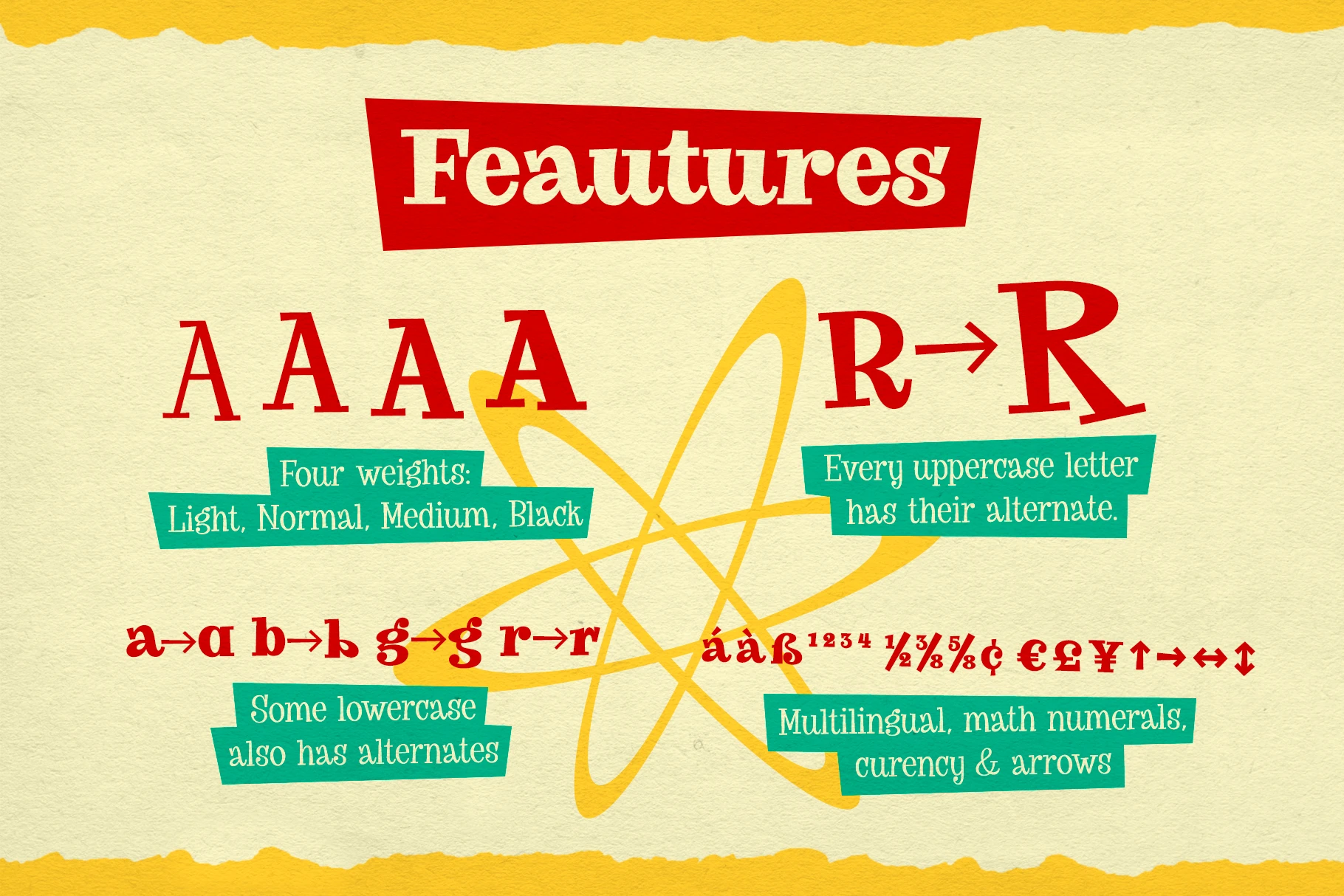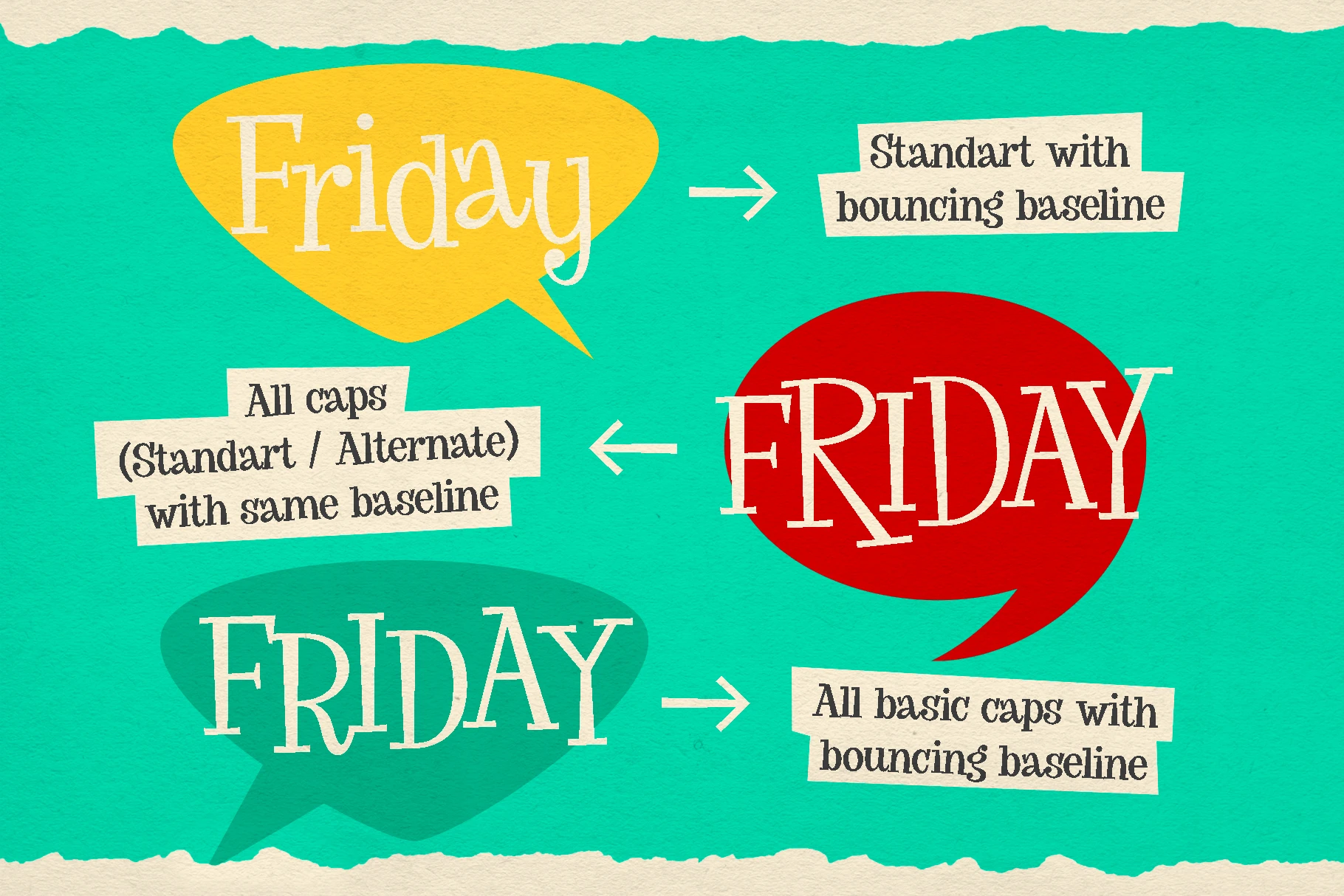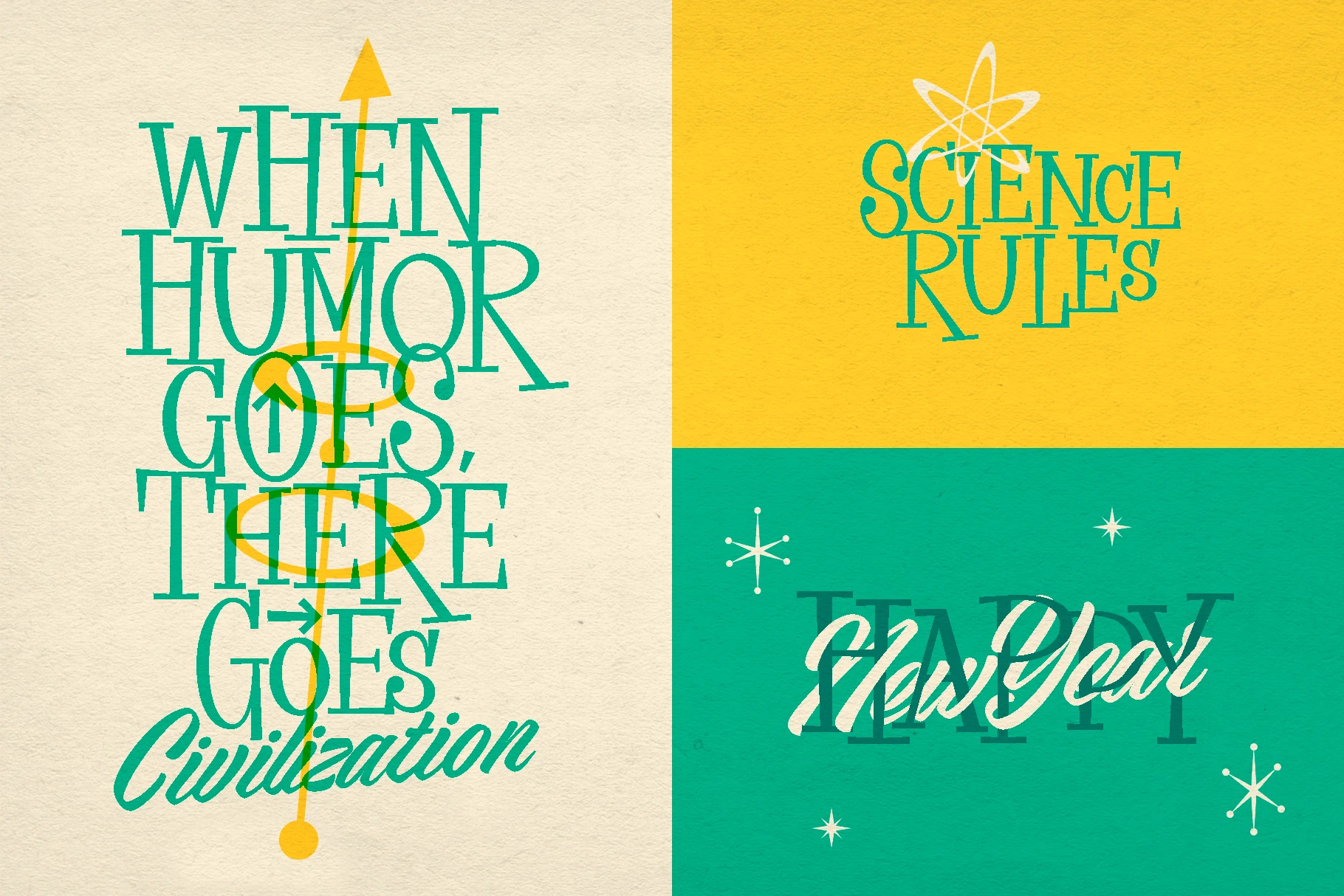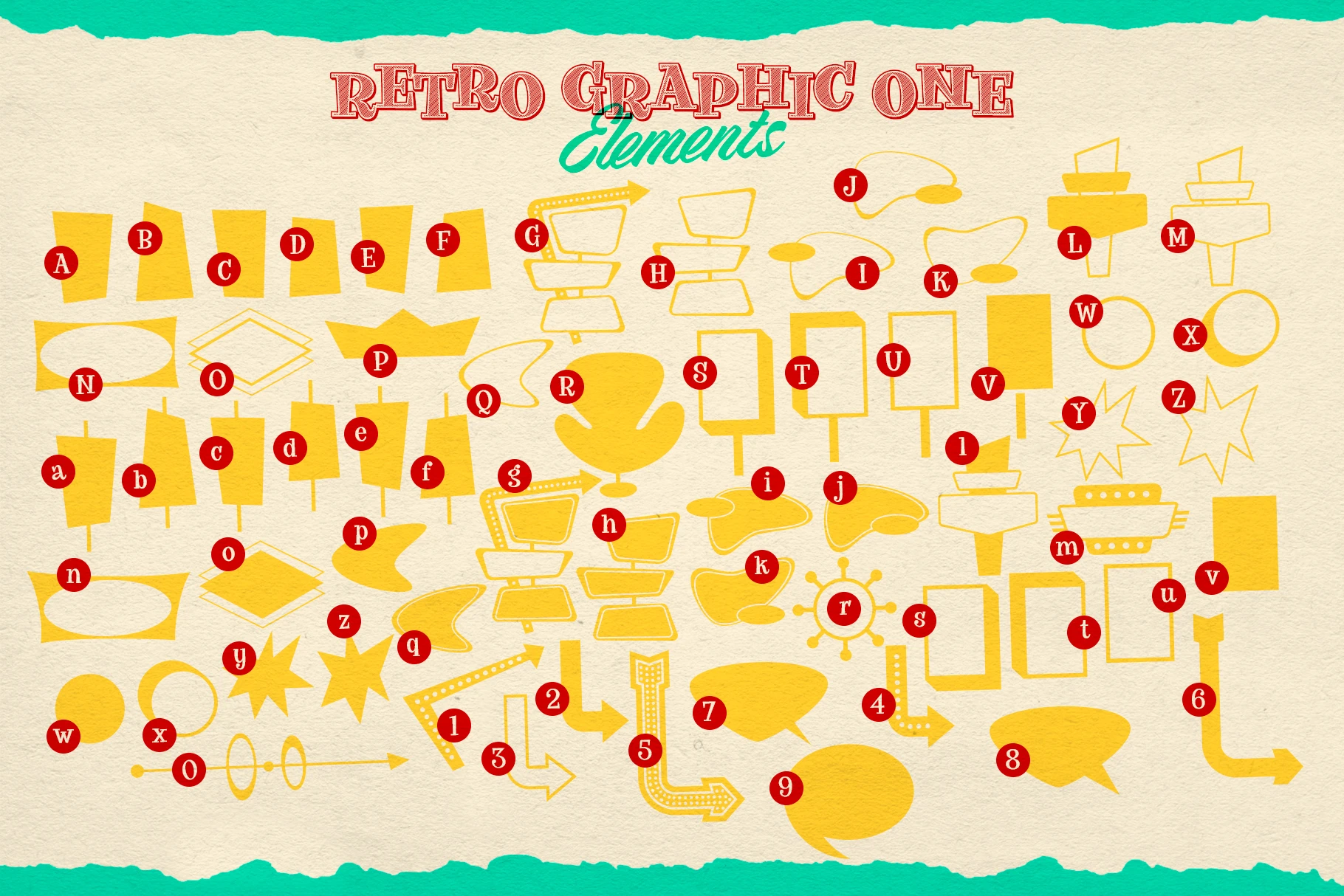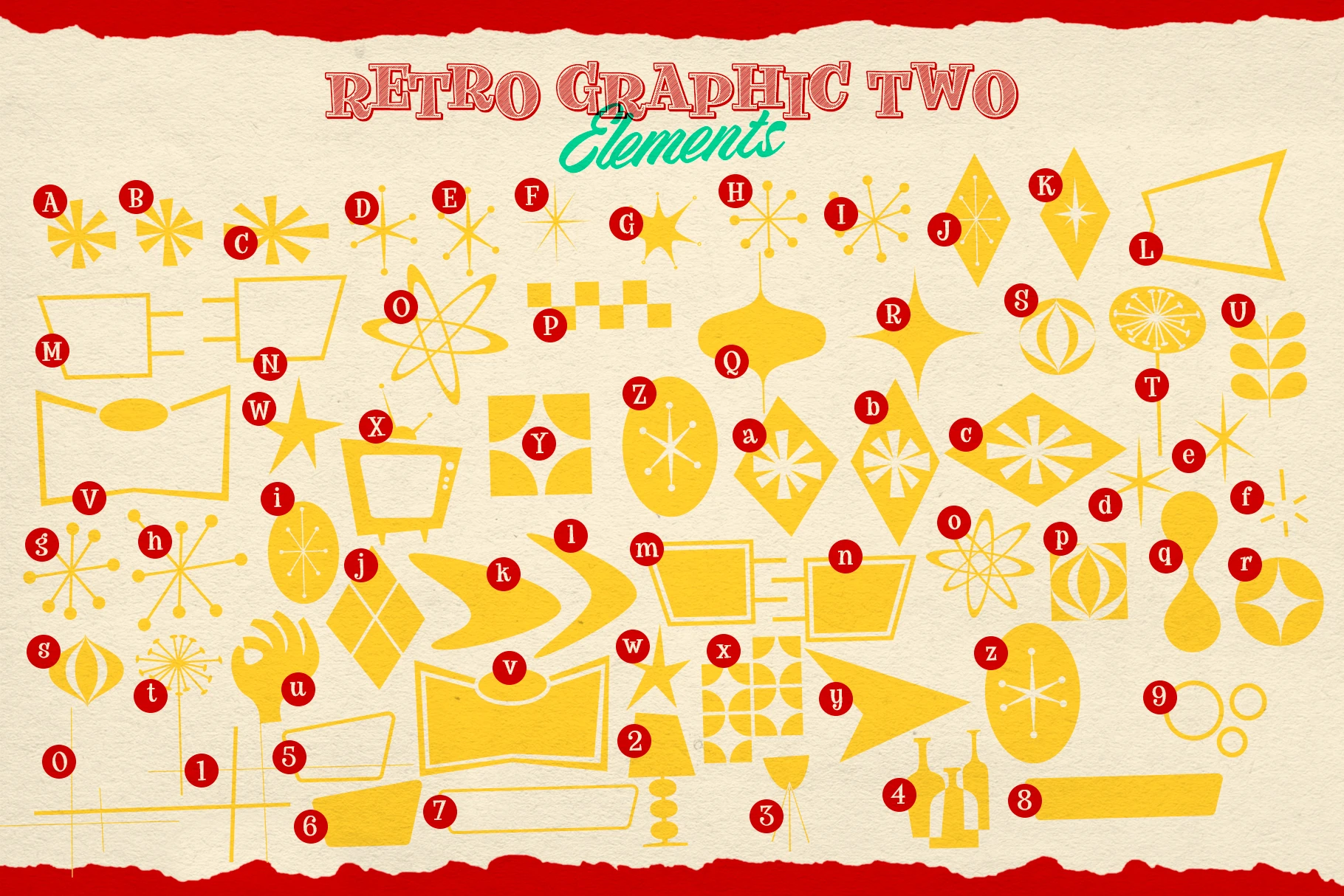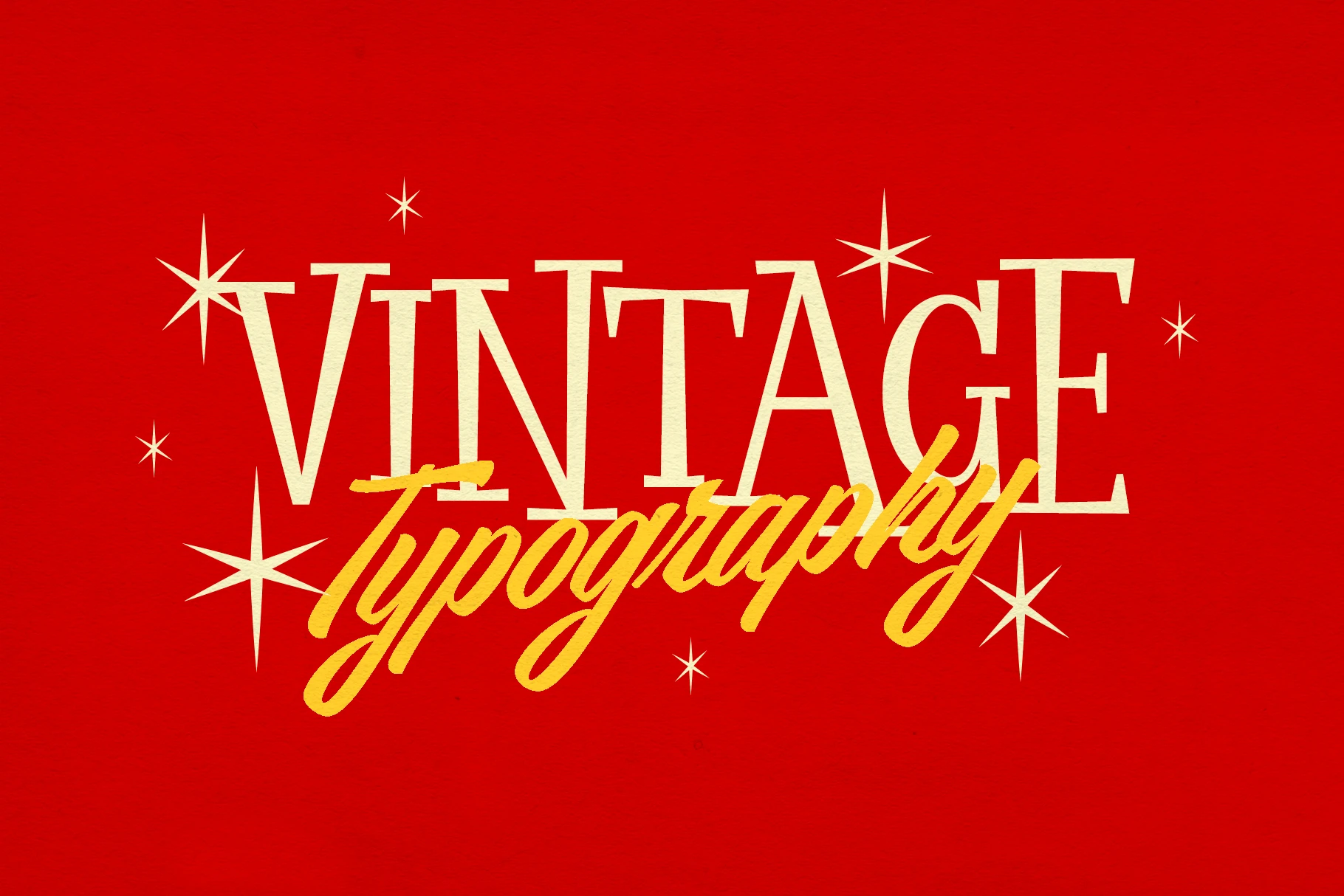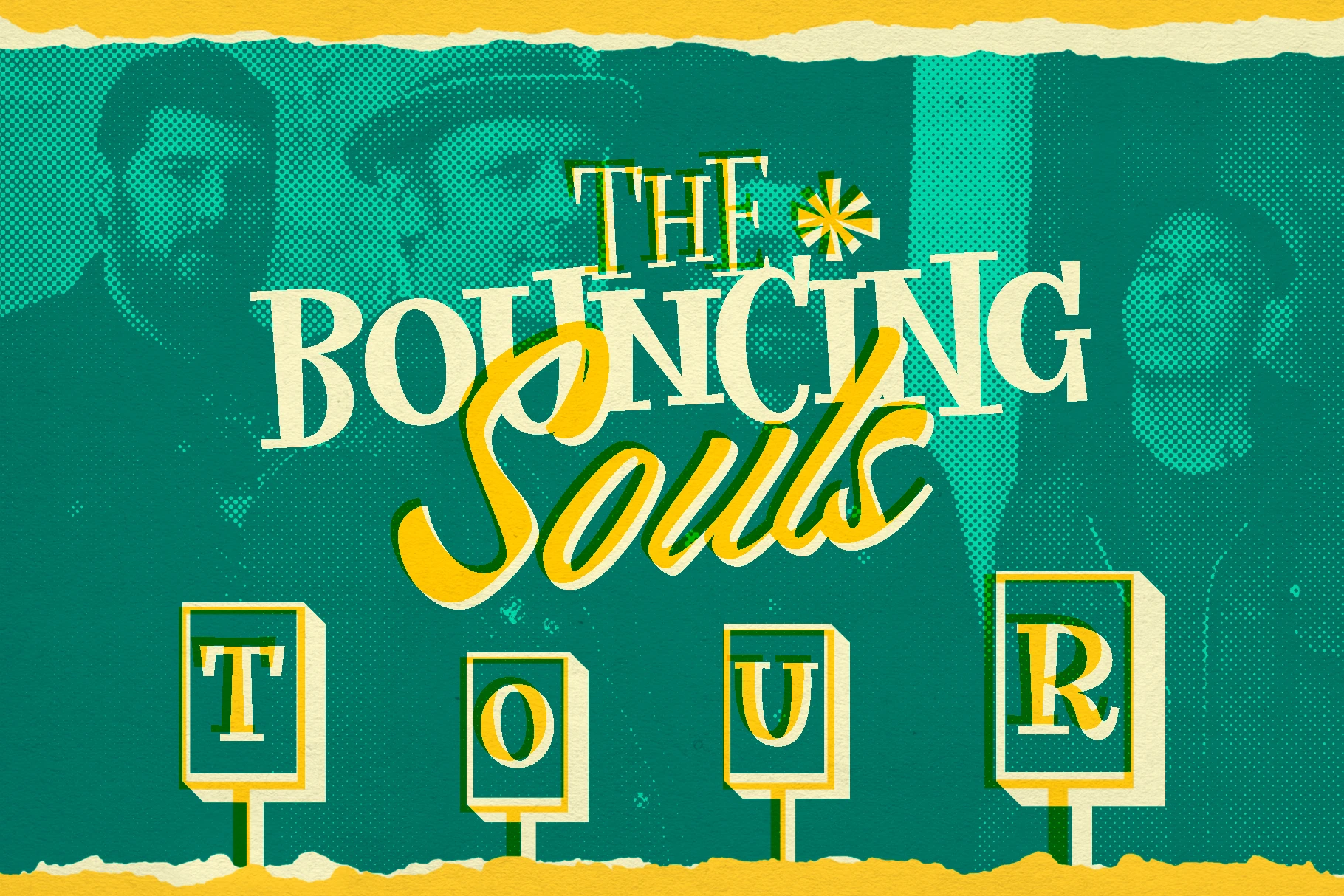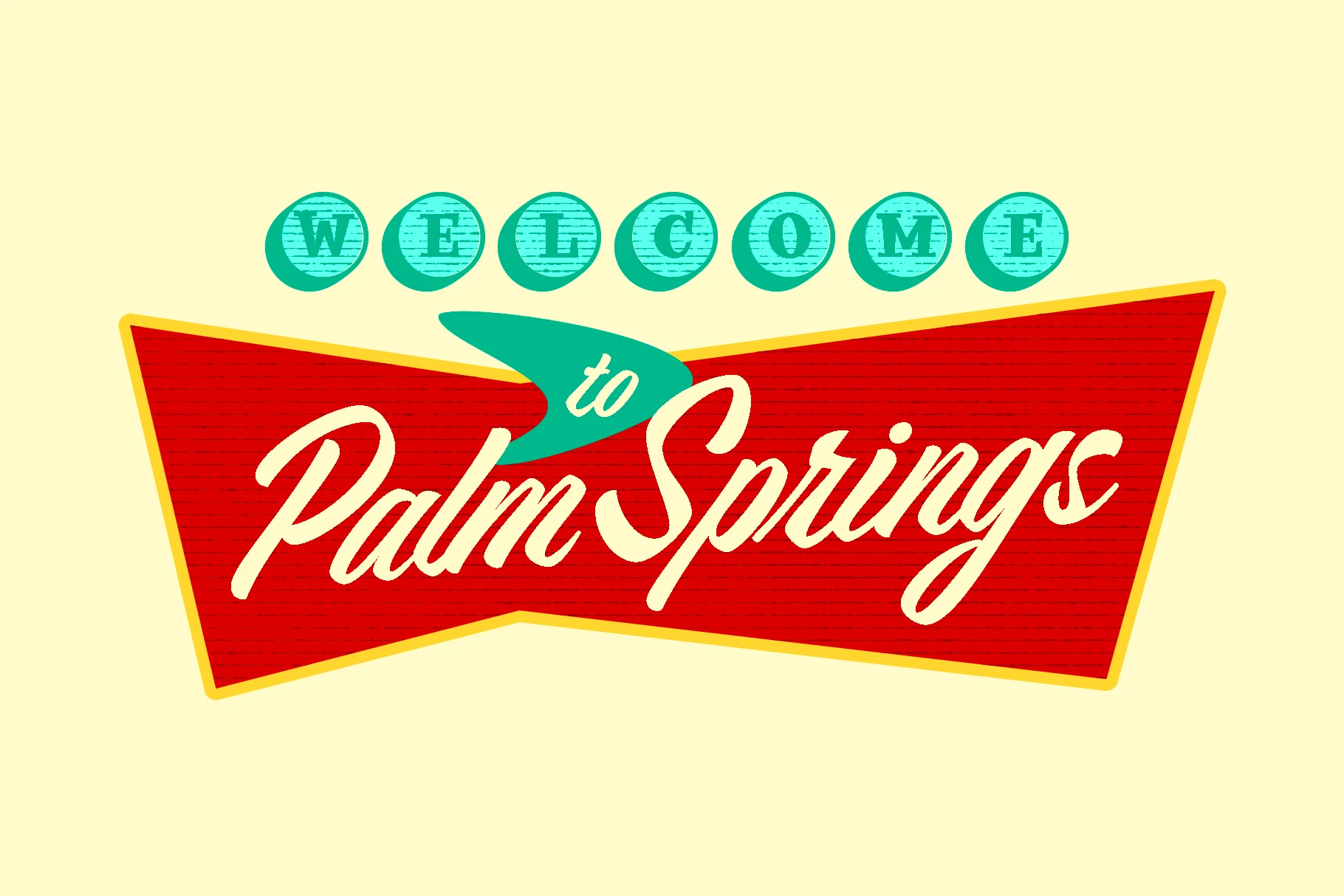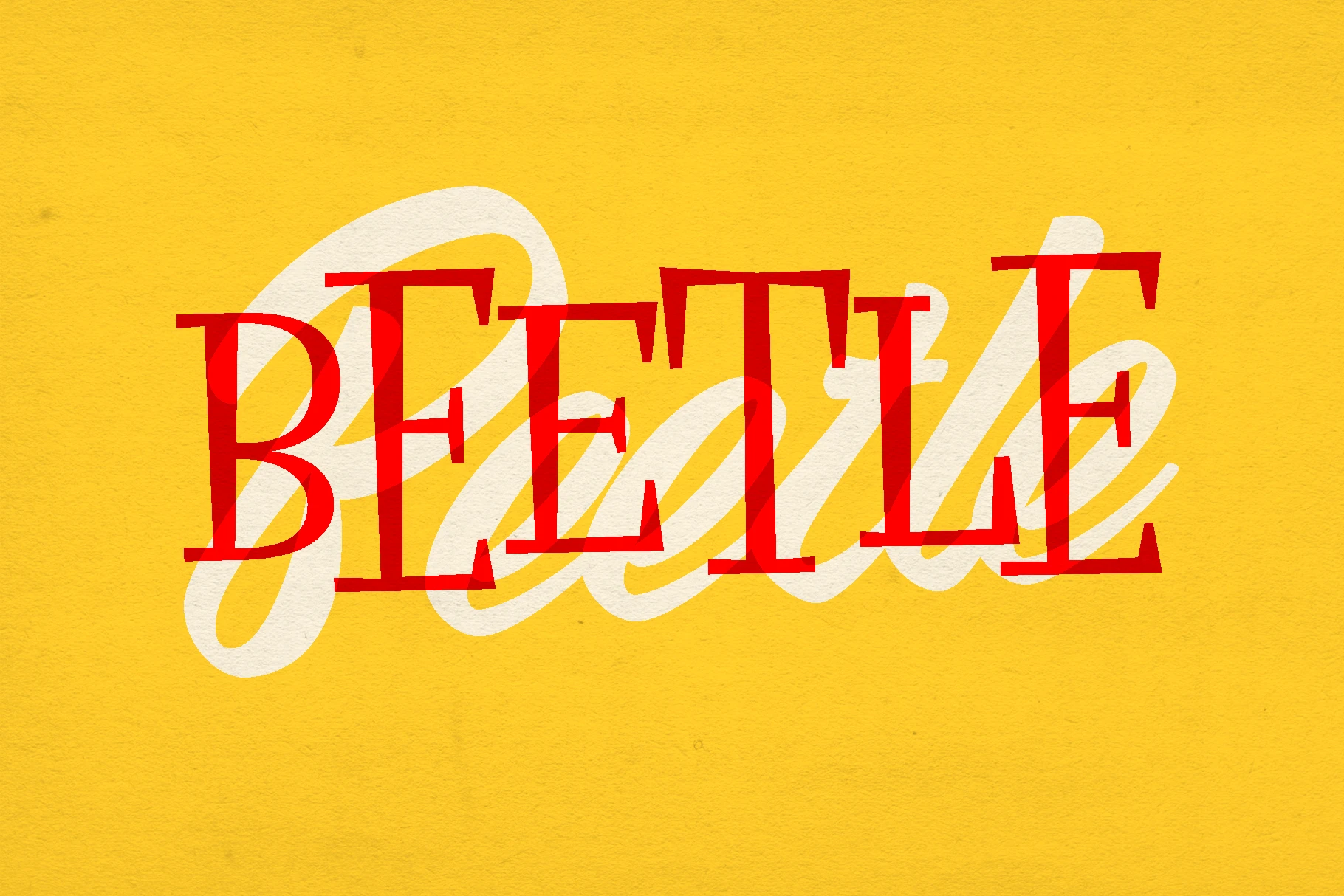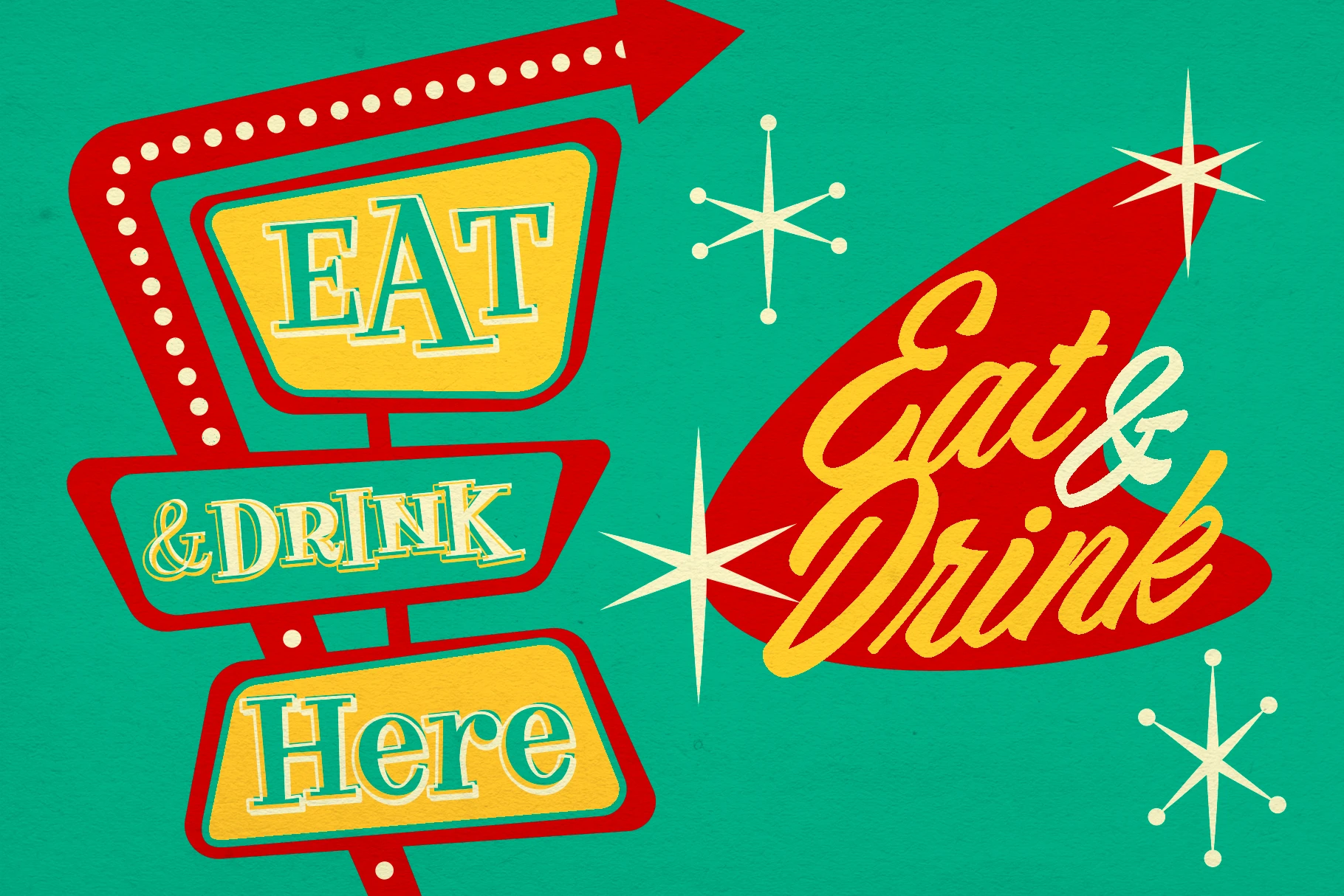
Big Tickle • 15 styles
The Big Tickle Font Family is a retro-inspired collection designed with the spirit of 1950s jazz and 1960s rock’n’roll. It includes a playful serif with multiple weights, perfect for adding rhythm and movement to layouts. Use it in all caps, mix in baseline shifts, or explore alternate uppercase characters for extra bounce. Decorative styles like inner hatched and offset shadow versions add more variety.
Also included is a bold script that mimics true brush lettering. It works beautifully on its own or paired with the serif for a dynamic combination.
Rounding out the collection is a set of vintage graphic elements. These capture the essence of mid-century posters, books, and ads, great for creating patterns or standalone illustrations. Ideal for retro branding, packaging, and editorial design.
• Fractions
• Stylistic Alternates
• Stylistic Sets